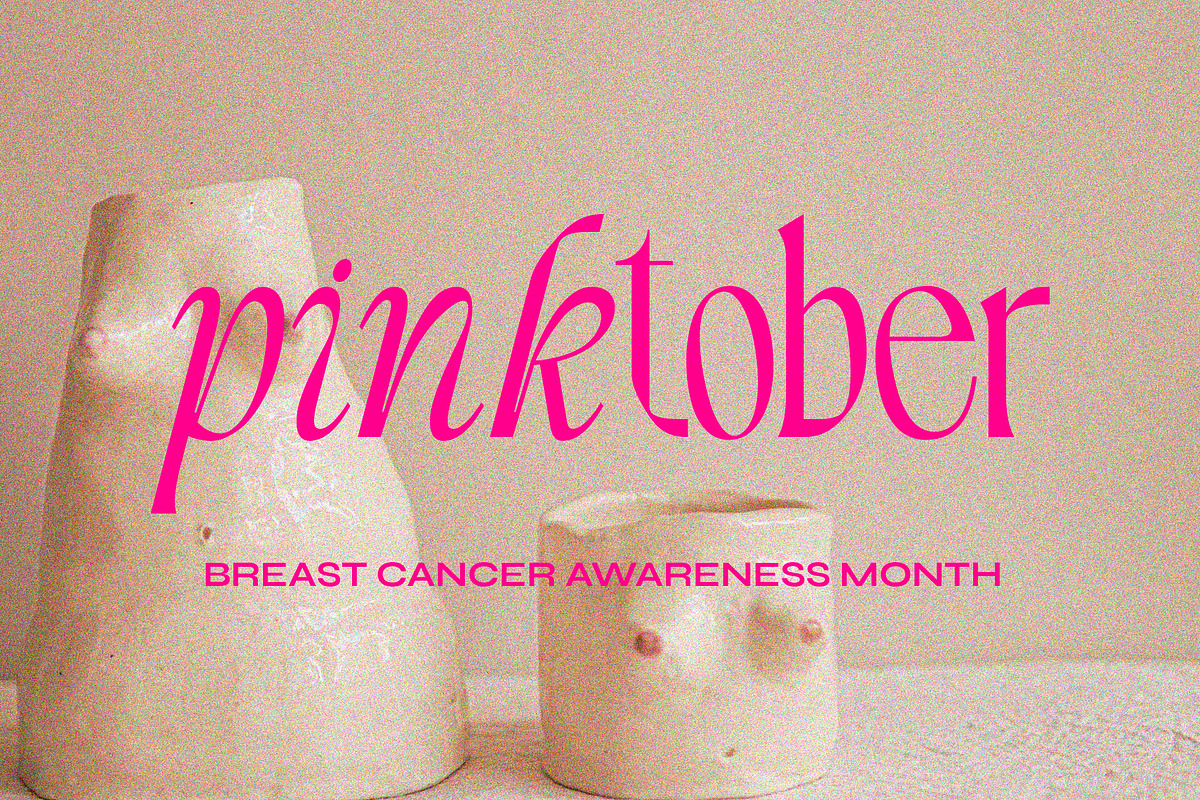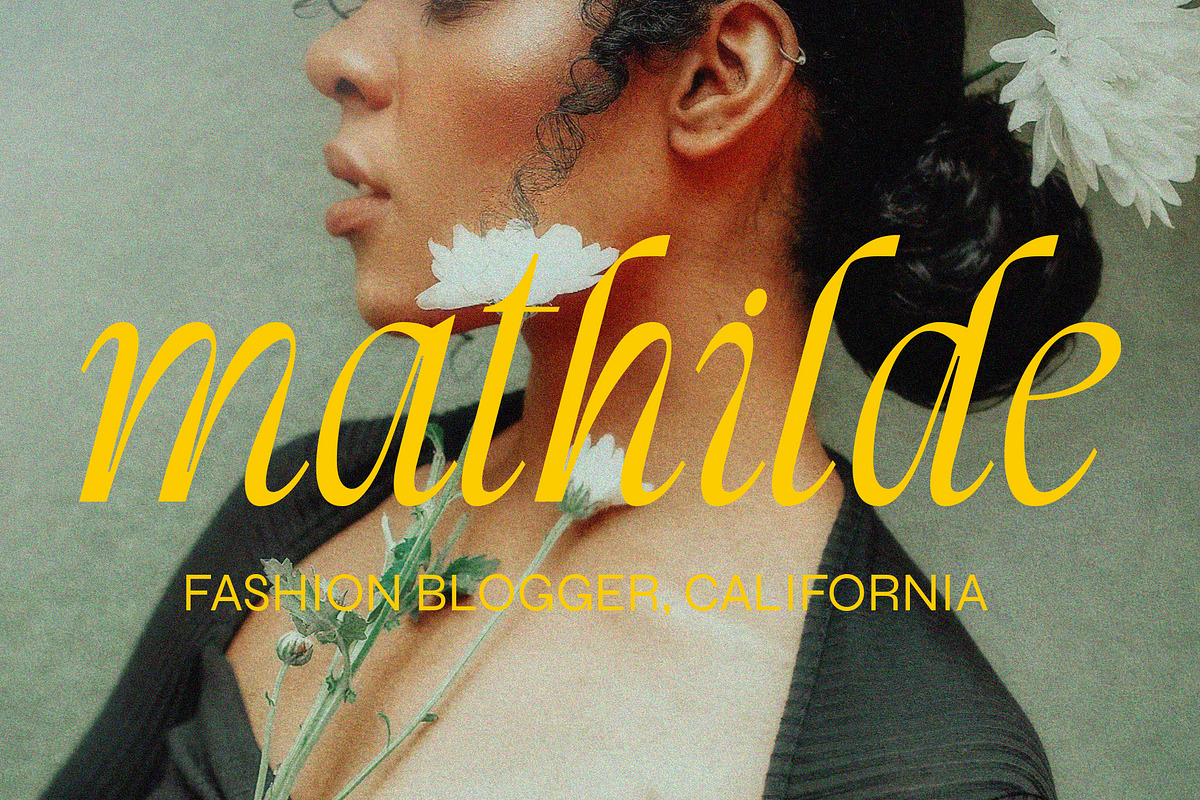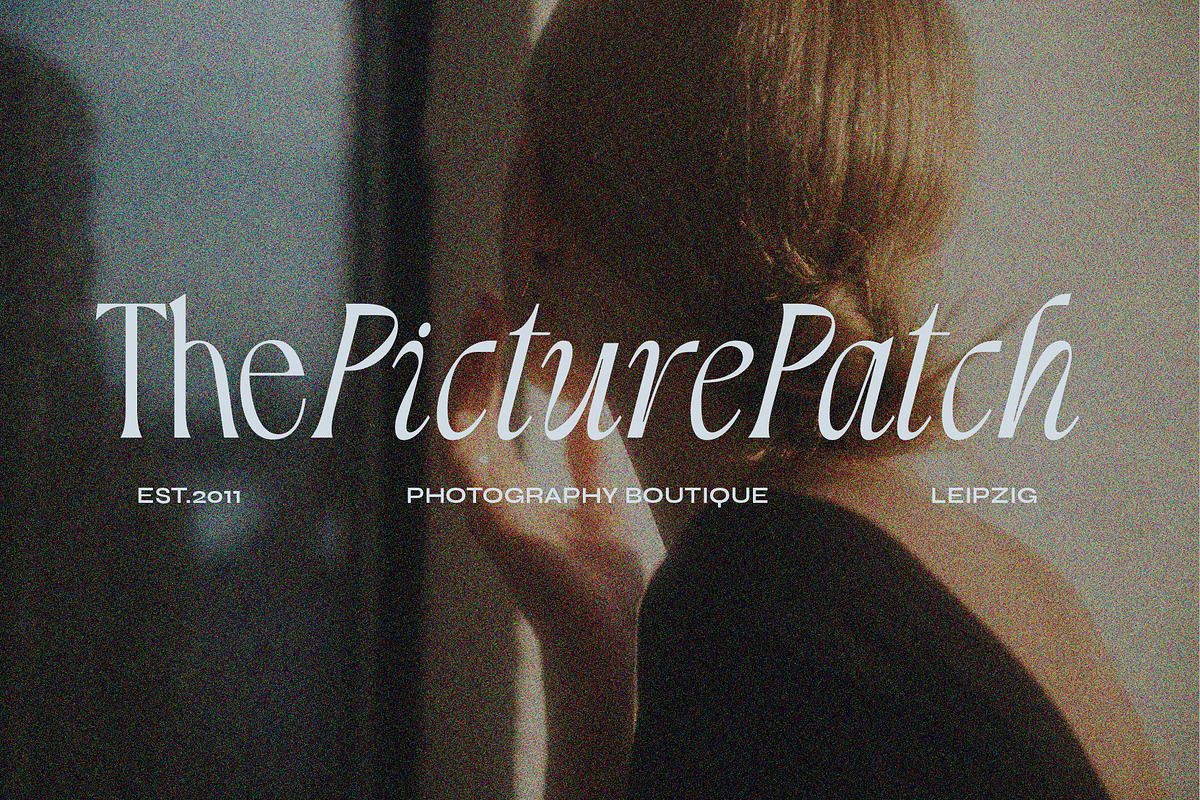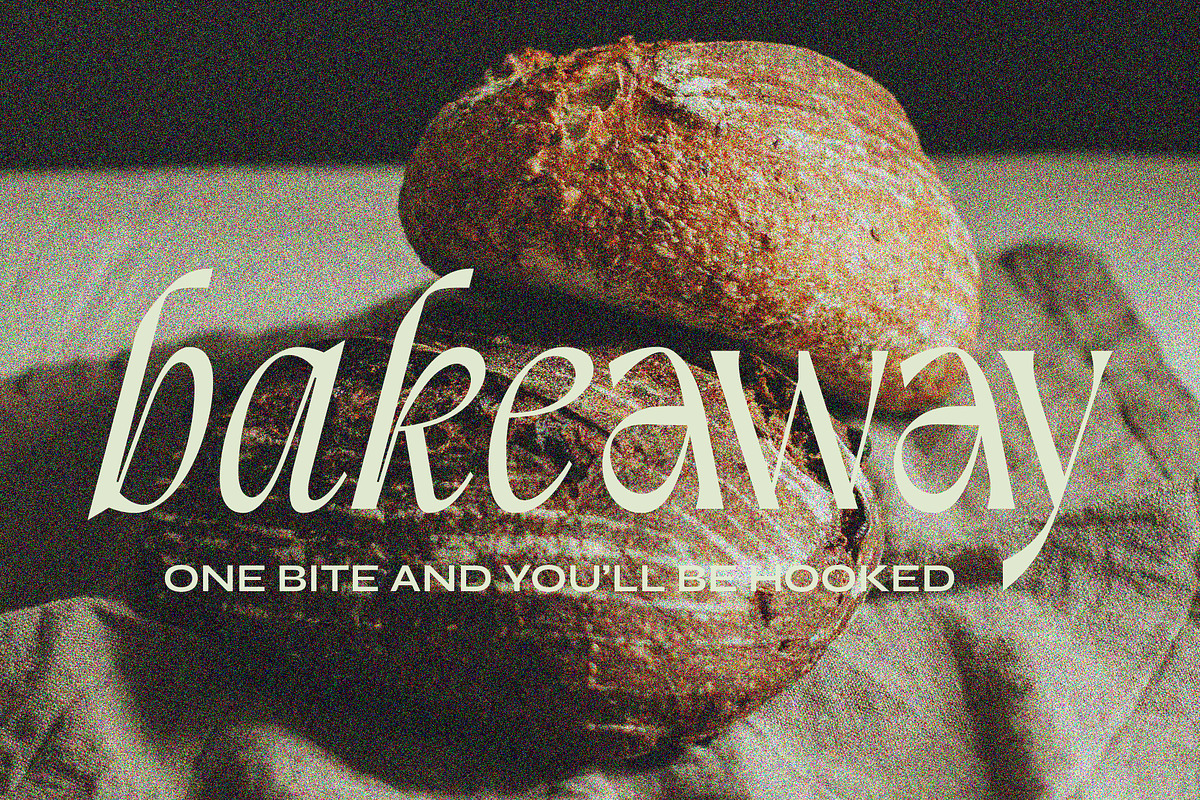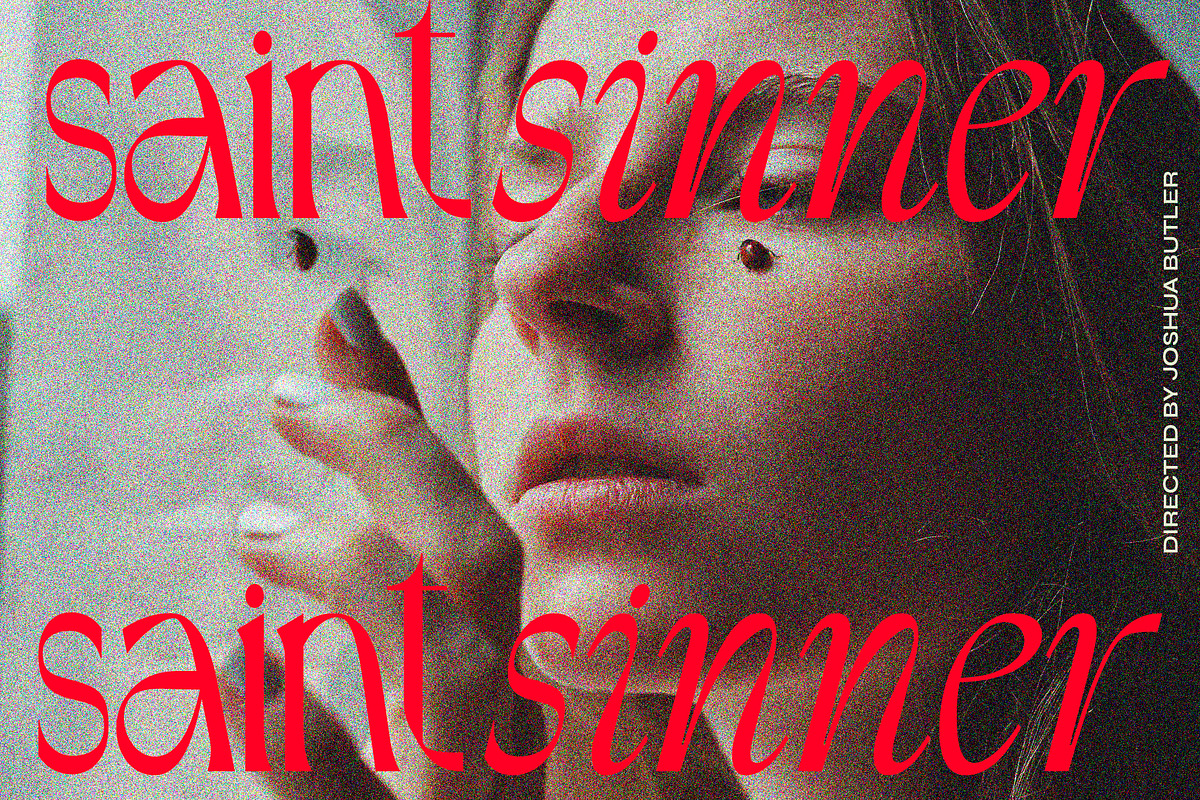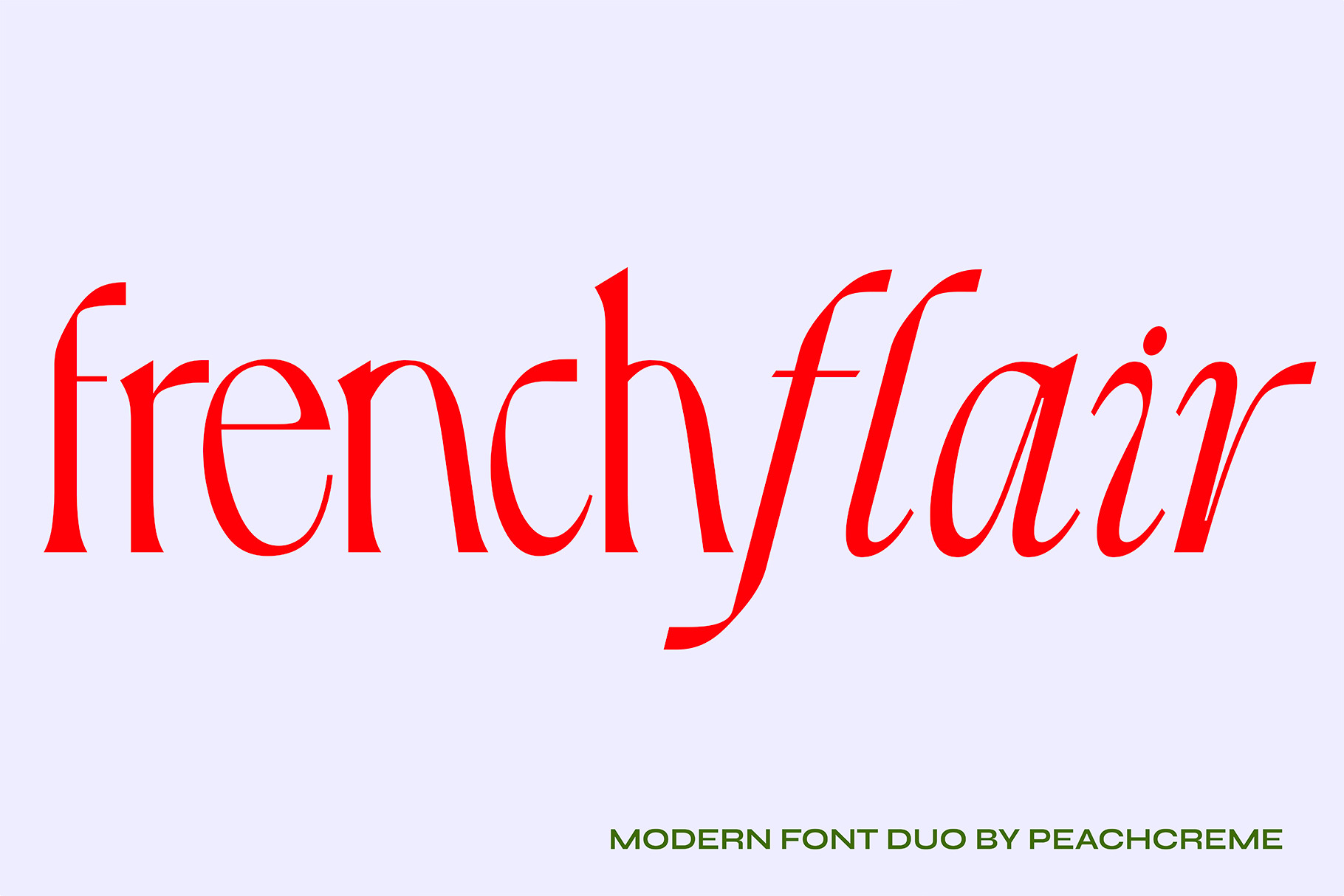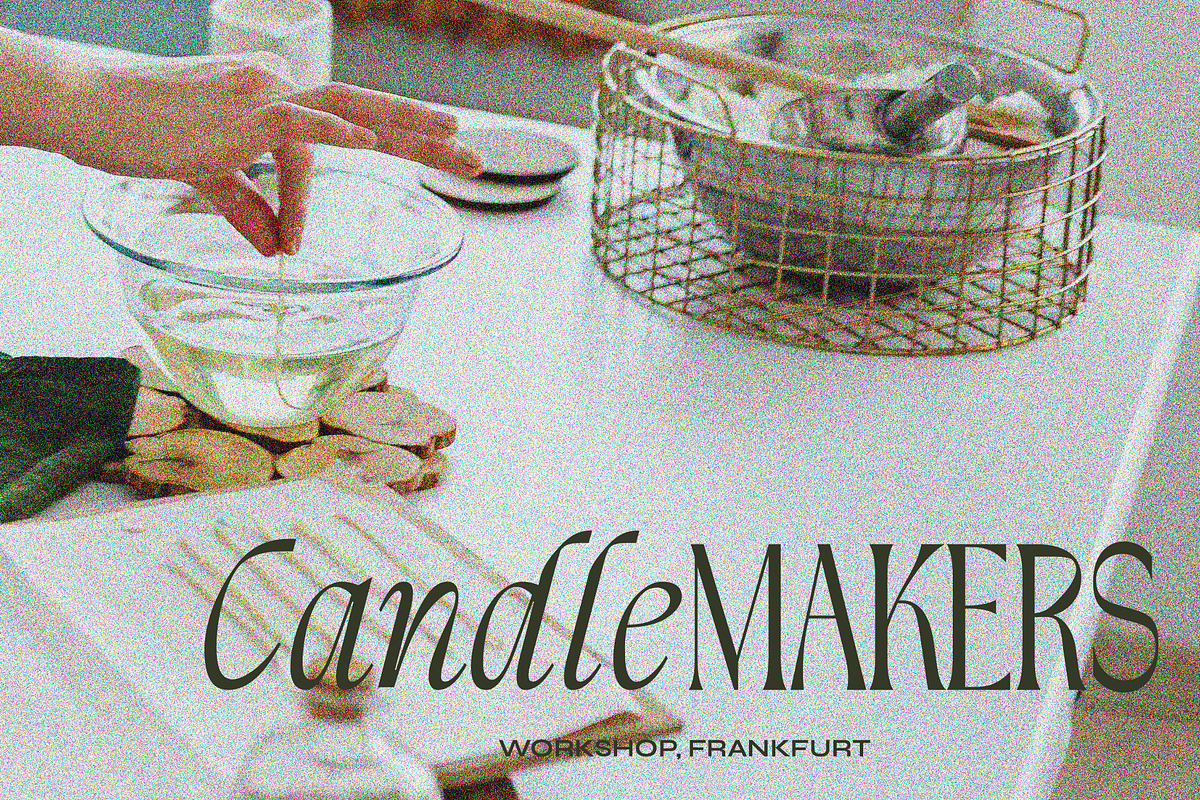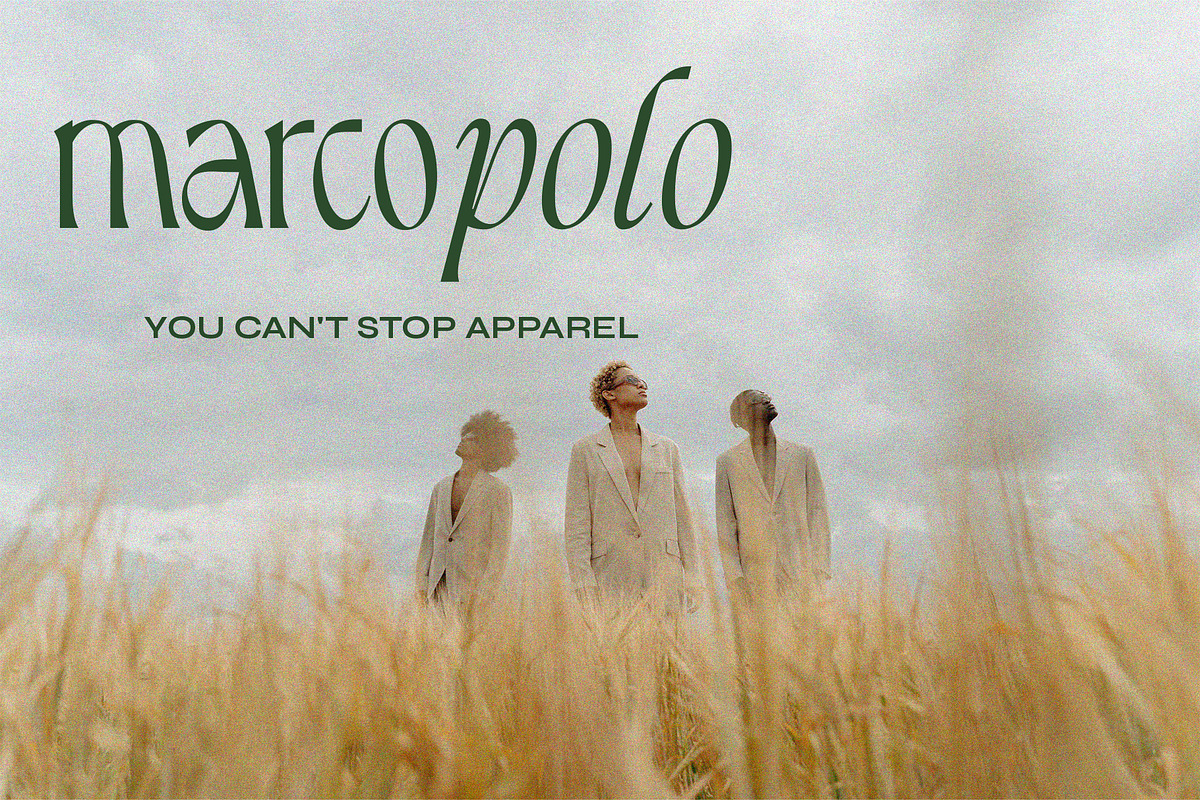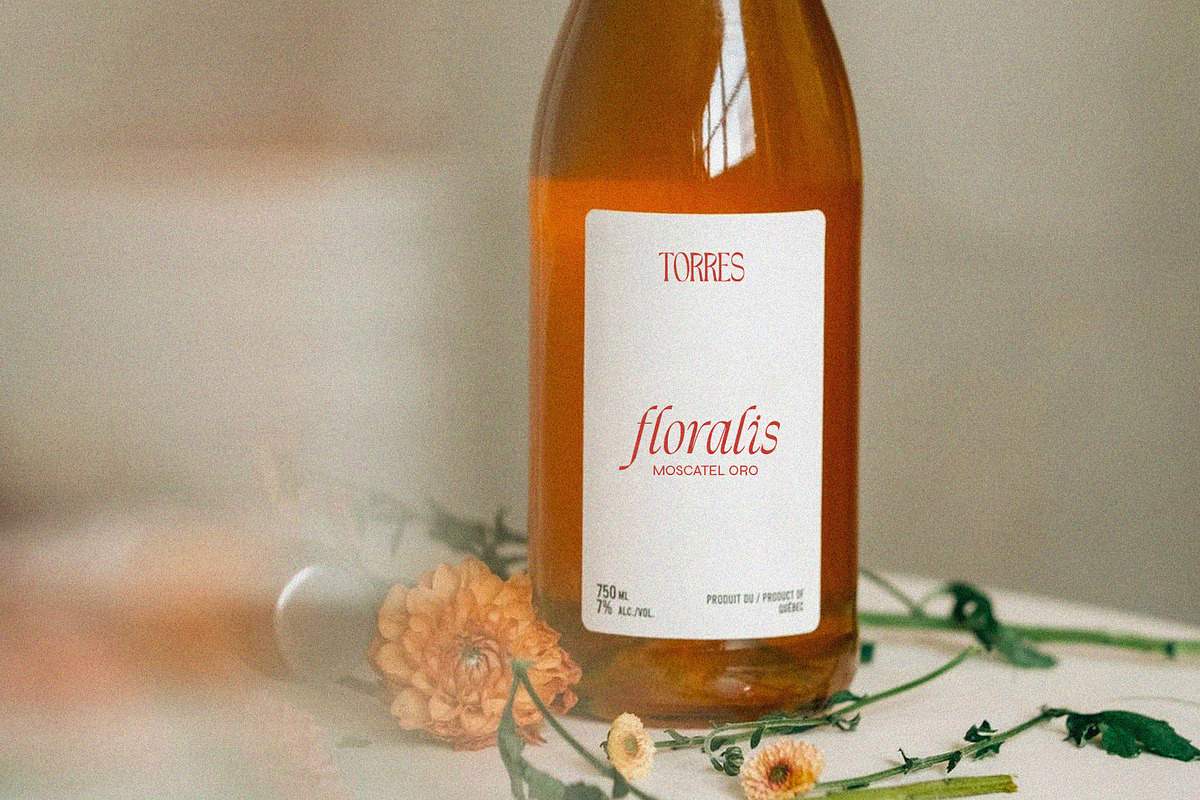
French Flair // Modern Font Duo
"French Flair" is our latest font pair! With a graceful decorative serif and contrasting light and crisp italic, French Flair duo can be handy in any trending design projects.